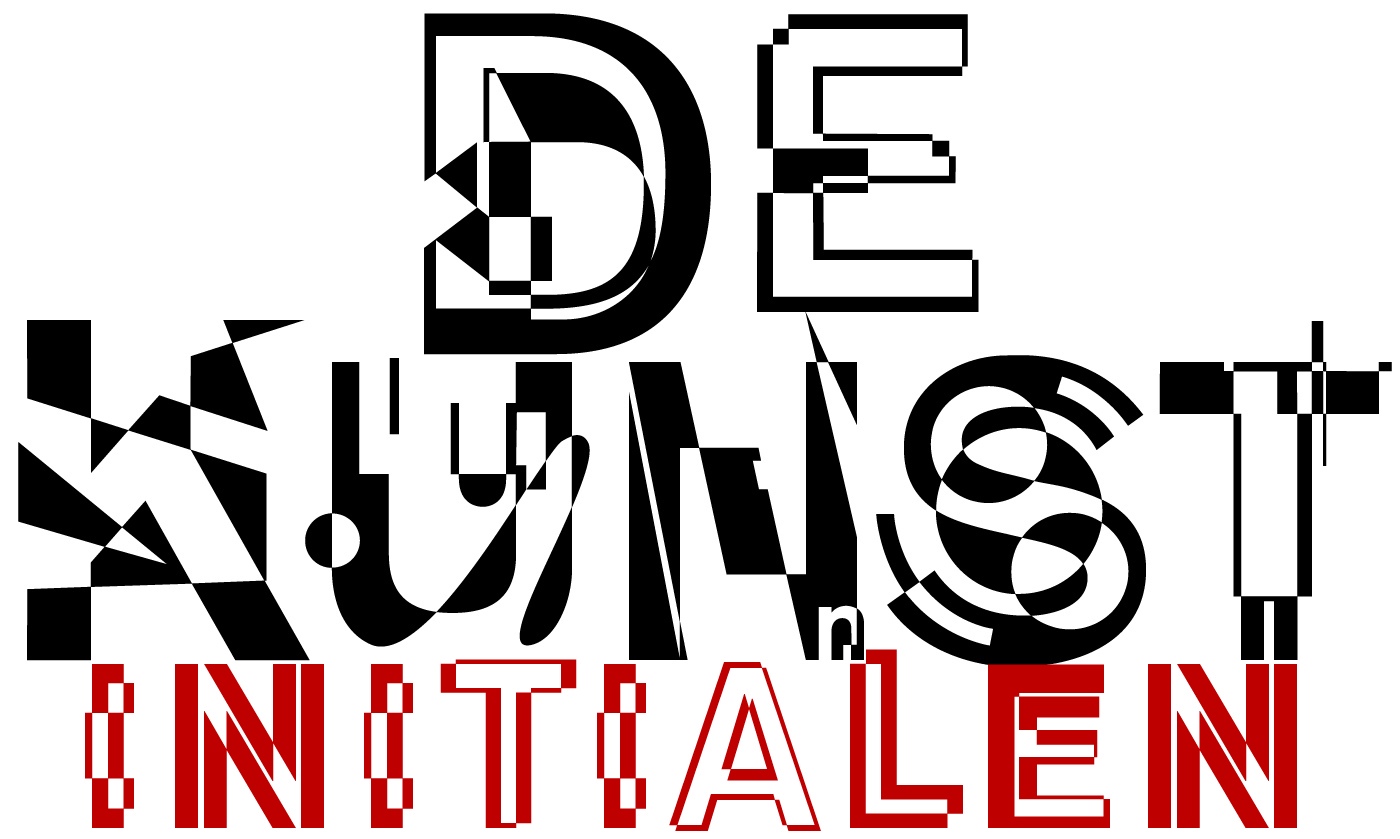
DeKunst Font
DeKunst Font is perfect for contemporary art gallery branding, modern museum exhibitions, artistic portfolio presentations, creative design studios, avant-garde fashion campaigns, cultural institution signage, fine arts education materials, and sophisticated artistic communications.
What makes DeKunst Font exciting is its artistic sophistication that embodies the refined elegance and creative intelligence of contemporary art culture with gallery-quality presentation and cultural refinement. The font features structured letterforms with artistic proportions and cultural character that evoke gallery walls, artist statements, and the sophisticated discourse of contemporary art and cultural critique. Its distinctive artistic styling and cultural appeal communicate creativity, intelligence, and aesthetic refinement, making every message feel curated by art experts and touched by the sophisticated beauty of contemporary artistic expression and cultural sophistication.
The DeKunst Font family includes regular weight with uppercase and lowercase letters, numerals, punctuation marks, and comprehensive cultural symbols. Premium versions often feature multiple weights and artistic alternates that enhance the sophisticated, gallery aesthetic perfect for cultural and artistic applications.
The cultural character of DeKunst Font makes it particularly valuable for art galleries, cultural centers, and artistic education institutions. Its excellent readability ensures artistic information and cultural messaging remain clear while maintaining the distinctive gallery aesthetic that appeals to audiences seeking authentic contemporary art experiences and cultural sophistication.
Art world marketers appreciate how DeKunst Font effortlessly conveys artistic authenticity and cultural intelligence. The font's refined proportions and artistic details create prestigious cultural materials that establish connections with audiences who value contemporary art, aesthetic innovation, and the sophisticated discourse of modern artistic expression and cultural critique.
The versatile sophistication of this typeface extends to design criticism, artistic publishing, and cultural consulting where artistic authenticity enhances cultural credibility and aesthetic appeal. DeKunst Font Free Download provides creative professionals with an essential tool for developing memorable, culture-driven designs that resonate with audiences who embrace contemporary art, cultural sophistication, and the refined intelligence of artistic expression in their cultural and aesthetic experiences.